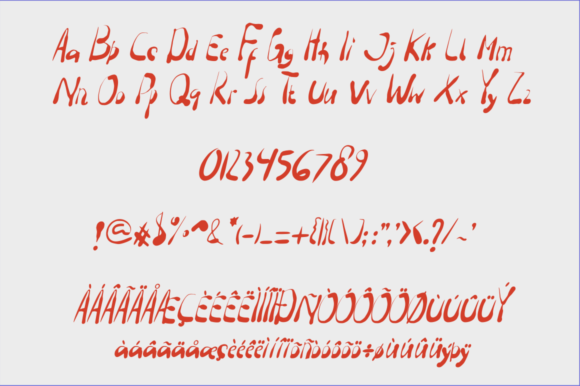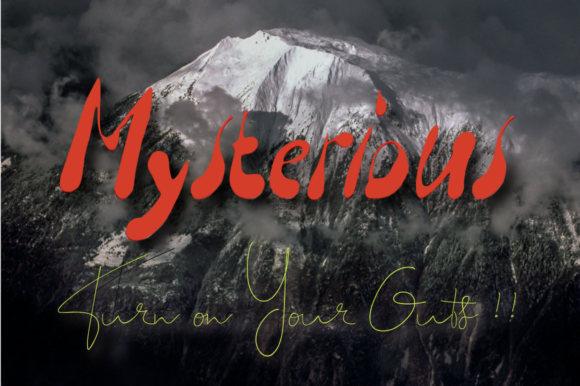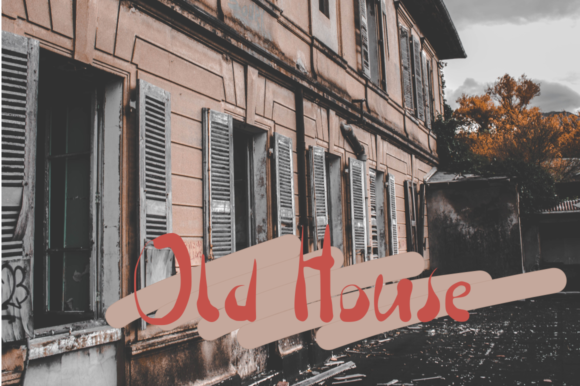
The Mysterious Charm of Drophh Font: A Designer’s Delight
I still remember the day I stumbled upon Drophh Font while working on a quirky project for a client who wanted a playful yet mysterious vibe. I had been searching for the perfect font for hours, trying out various combinations, but nothing seemed quite right. That was until I laid eyes on Drophh – its kooky feel and handwritten charm instantly captured my attention. It was love at first sight! 💕
An Honest Review of Drophh Font
What I Love About Drophh ✨
- 💫 Unique and quirky feel that adds a special touch to any design
- 🎨 Versatile and adaptable to various design styles and themes
- 🌈 Beautifully crafted with a mix of bold and delicate strokes
- ⚠️ Some characters may appear a bit cramped at larger font sizes
- 🤔 Limited availability of extended language support
The Backstory of Drophh Font
Drophh Font was crafted with love by a designer who wanted to capture the essence of a quirky, handwritten style. The designer drew inspiration from vintage signs, playful graffiti, and the imperfections of handwriting. The result is a font that’s both mysterious and charming, perfect for adding a unique touch to your designs.
| What makes Drophh Font unique? | Drophh Font stands out due to its kooky, handwritten feel and mysterious charm, making it perfect for designs that need a special touch. |
| Is Drophh Font suitable for body text? | While Drophh is highly legible, it’s best used for headlines, titles, and short paragraphs. For longer body text, a more traditional font might be more suitable. |